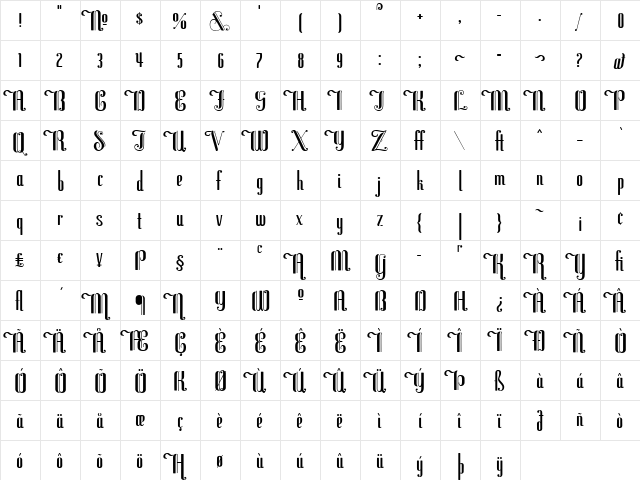
Flirt Deco Regular
| Foundry | Canada Type |
Design Context for Flirt Deco Typeface
Flirt Deco is a composed and adaptable typeface that performs quietly and consistently across a wide range of design contexts.